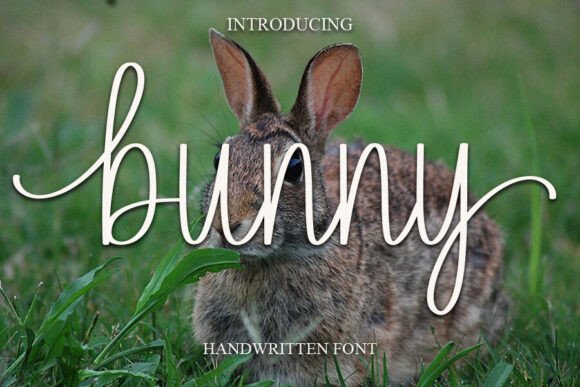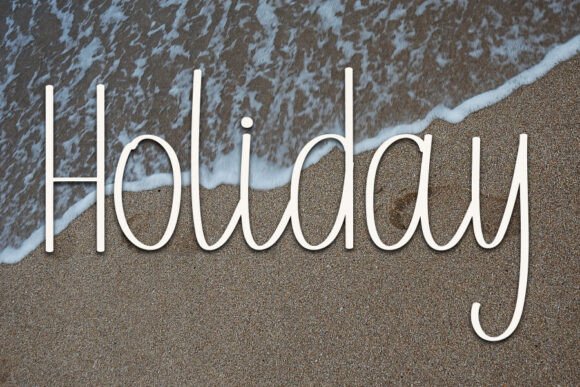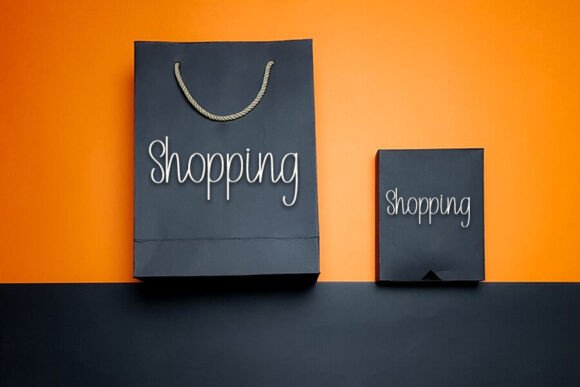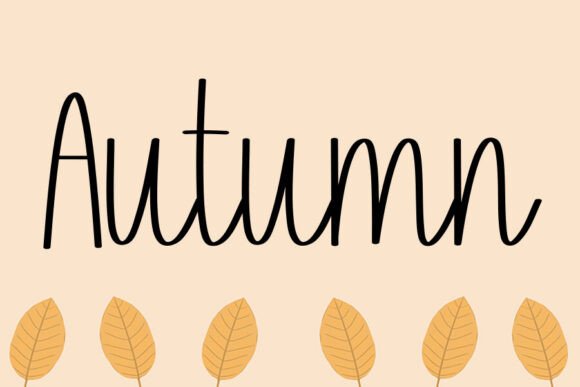
Bunny Font: A Cute Calligraphy Script for DIY & Cricut Projects
About the Bunny Font
Make a bold statement with Bunny Font, a powerful and memorable font. Bunny is a sweet and cursive handwritten font. This gentle font will look gorgeous on a variety of design ideas. It will add a joyful and romantic touch to each of your projects! Perfectly fit for branding, logo, wedding things, greeting cards, fashion, lookbook, marketing promotion, and any time you want your design to look fancy and elegant but still casual.
Bunny Font Usage Examples
Bunny Font Example